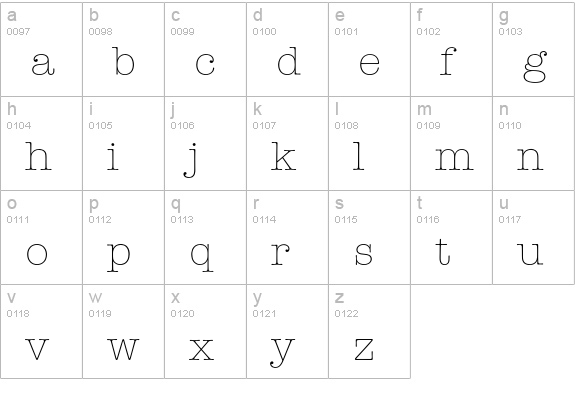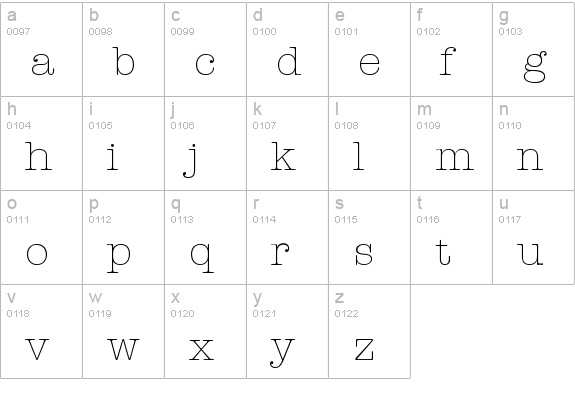
AmericanTypewriterBQ-Light Font Details
AmericanTypewriterBQ-Light is a refined, elegant variant in the AmericanTypewriterBQ typeface family \xE2\x80\x94 well suited to elegant body text, refined sub-headings, and luxury branding.
AmericanTypewriterBQ-Light font is a timeless and classic typeface that exudes elegance and sophistication. With its clean lines and traditional appearance, this font is perfect for conveying a sense of professionalism and reliability in any design project. The light weight of the font adds a touch of subtlety and refinement, making it ideal for creating a polished look. What sets AmericanTypewriterBQ-Light font apart is that it is available for free download at FontsMarket.com. This means that you can easily access and use this high-quality font in your projects without any cost. Whether you're designing a brochure, website, or logo, AmericanTypewriterBQ-Light font will help you achieve a stylish and refined look effortlessly. Embrace the timeless appeal of AmericanTypewriterBQ-Light font and elevate your designs with its classic charm and versatility. Download it for free today at FontsMarket.com and add a touch of sophistication to your next project.